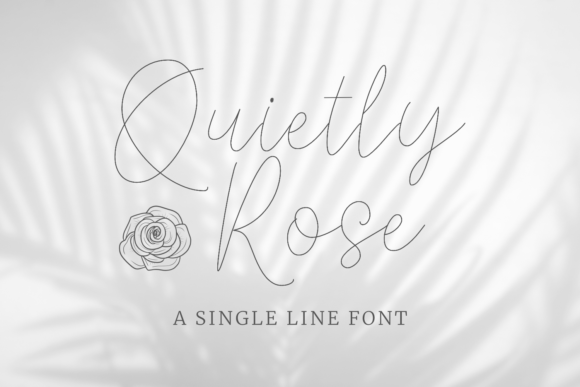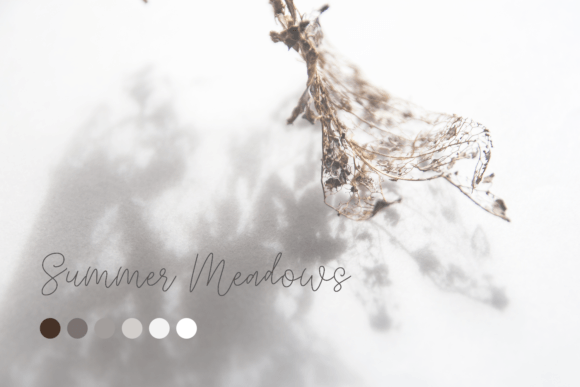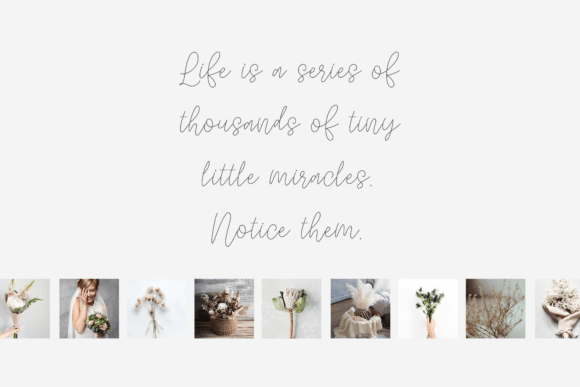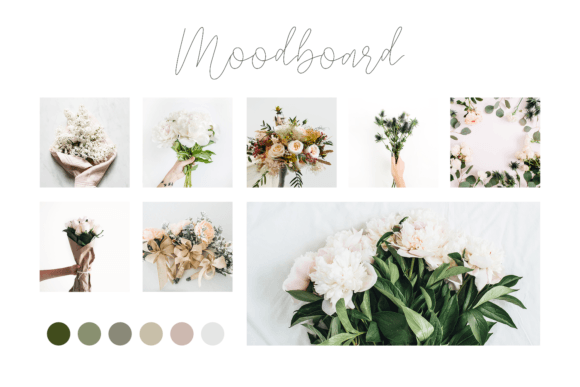
Quietly Rose Font: Elegant Handwritten Script for Invitations & Branding
About the Quietly Rose Font
The wait is over! The incredible Quietly Rose Font is now available for your design toolkit. Quietly Rose is an exclusive and refined handwritten font. With its elegant lines and sophisticated details, it adds a touch of luxury to any design project. Ideal for high-end branding, invitations, and more, this font is perfect for those seeking a touch of class and sophistication. Download now and elevate your designs.
Quietly Rose’s elegant, flowing script is best suited for headlines, short text blocks on invitations or certificates, and logo design where a touch of refined luxury is desired. It excels in branding for high-end products or services, particularly those in the fashion, beauty, or luxury goods sectors. However, its delicate nature makes it less suitable for body text or lengthy paragraphs, and it should be avoided in UI contexts where readability is paramount.
Pairing Quietly Rose effectively requires considering its inherent sophistication. A clean sans-serif like Montserrat or a geometric sans-serif like Futura would provide a strong, modern contrast, balancing its hand-drawn quality. For a more traditional feel, a classic serif such as Garamond or Didot could be used sparingly to complement its refined character.
The overall personality of Quietly Rose is sophisticated and elegant, conveying a sense of calm confidence and high-end quality. Its refined strokes and subtle details make it ideal for projects aiming for a timeless, luxurious aesthetic.
Quietly Rose Font Example